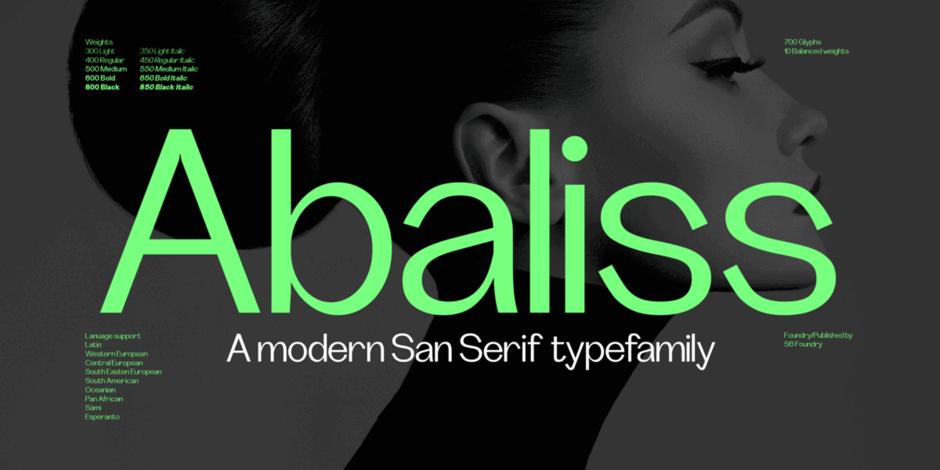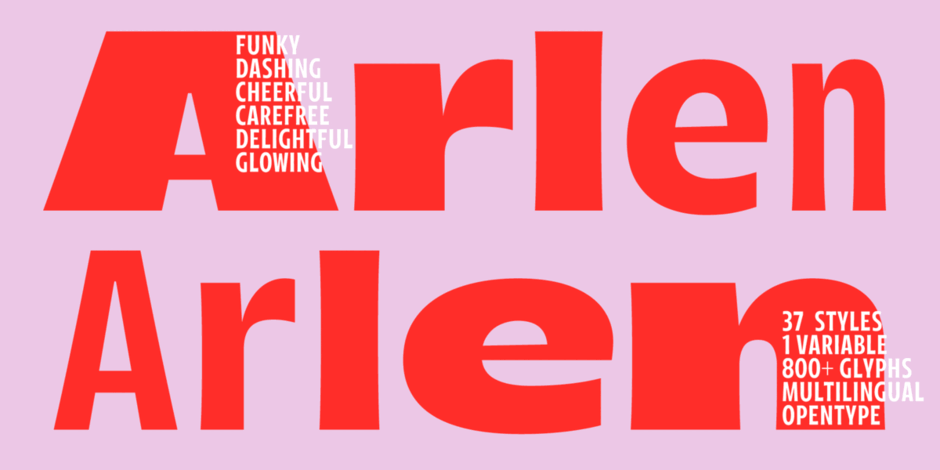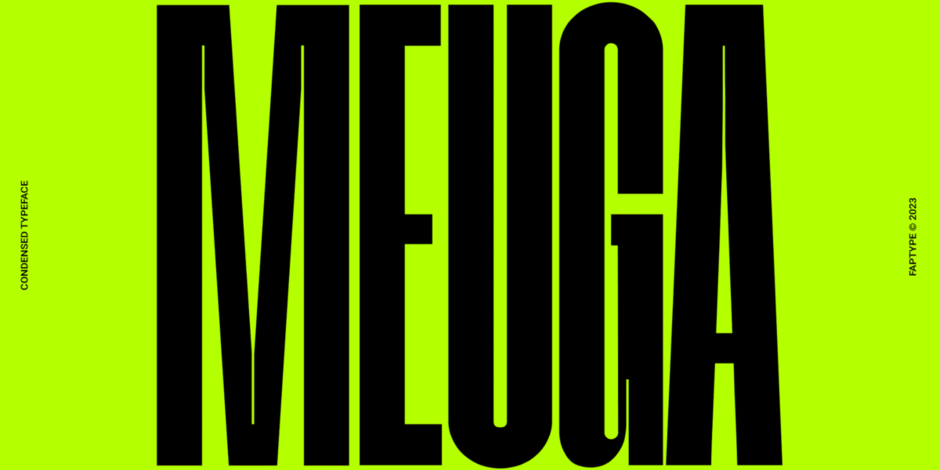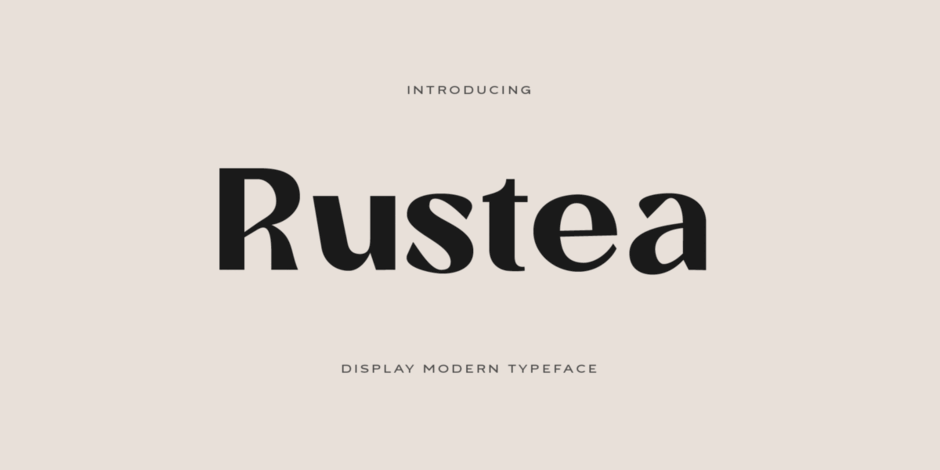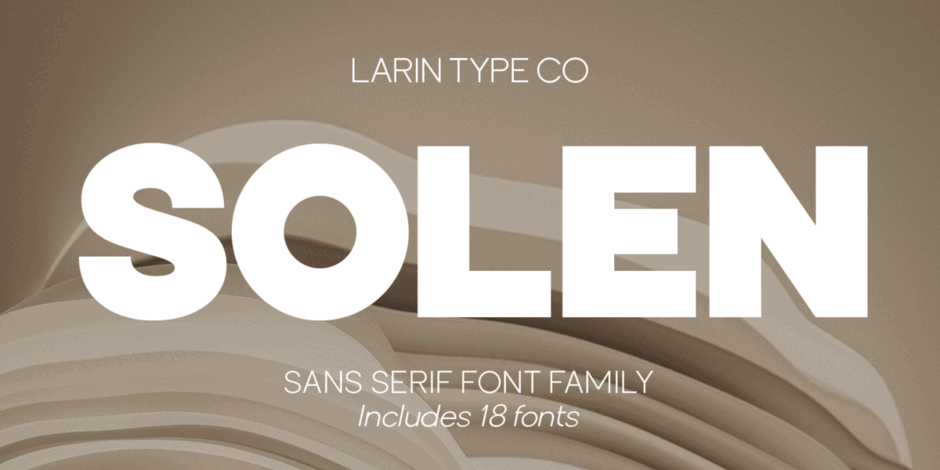
Arlen by Groteskly Yours
Meet Arlen, a funky, variable, and indescribably charming type family in 37 styles. Loosely inspired by 20th-century hand-painted signs and the visual culture of the 80s, Arlen adds a little extra to this already charismatic mix. Originally conceived as a much smaller family, Arlen slowly developed into a large type system with 6 widths (from Tight to Wide) and 6 weights (Light to Heavy). A variable font that encompasses all these weights and widths is also part of the Arlen family.
Arlen is a display Sans Serif that can, however, be freely used for larger bodies of text, especially when lighter styles are used. Among its most prominent visual features are high contrast, flaring stems, and dynamic letterforms.
This is a typeface that conveys kindness, good cheer, and only good vibes. It would feel at home both in digital and print mediums; it can be used in advertising, editorial design, social media, web design, or personal design projects. With versatility at its heart, Arlen would be a perfect typeface for large design systems that require multiple styles for typesetting.
Solen by Larin Type Co
Solen is a modern Sans Serif font that includes nine weights from thin to black and nine weights in Italic style.
This multi-purpose font captures a huge range for the design and creation of your project. Solen’s family will perfectly cope with a variety of tasks, and it will always look stylish and modern. With it, you can create logos, and labels, and use them in advertising, packaging, branding, book covers and magazines, cosmetics, banners, posters, headings, descriptions, and much more. This font is easy to use and has OpenType features.
Meuga by Ferry Ardana Putra
Introducing our sleek and modern condensed Sans Serif font - Meuga. It is a font that offers a minimalist design with its narrow width and clean lines, perfect for any branding or design project.
This condensed Sans Serif font is perfect for anyone looking for a clean and modern look, with its narrow width and elegant lines. Add a contemporary touch to your designs with our condensed Sans Serif font, perfect for headlines and titles in digital and print design.
Abaliss Sans by S6 Foundry
Abaliss Sans is a contemporary typeface with strong stylistic geometric contrasts representing the shifting contemporary aesthetics. Its distinctive stance and wide-open counters allow the right visual consistency for branding and communications projects.
Rustea by Yukita Creative
If you are looking for a typeface that is both different and stylish, Rustea is a perfect choice. With its combination of modern and vintage curves, this typeface is perfect for creating eye-catching designs that will stand out from the crowd.